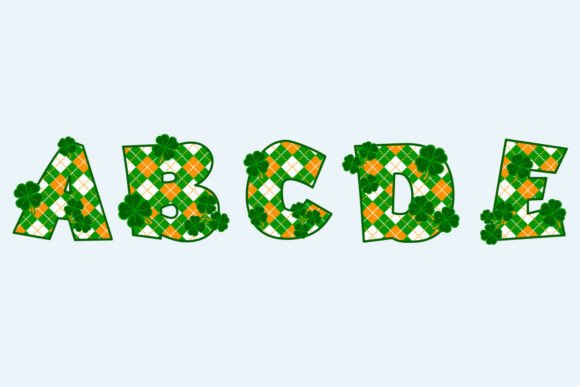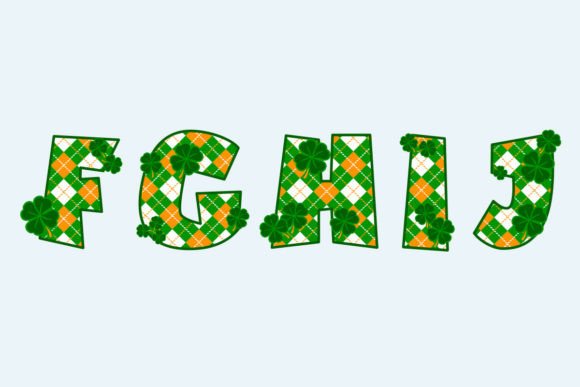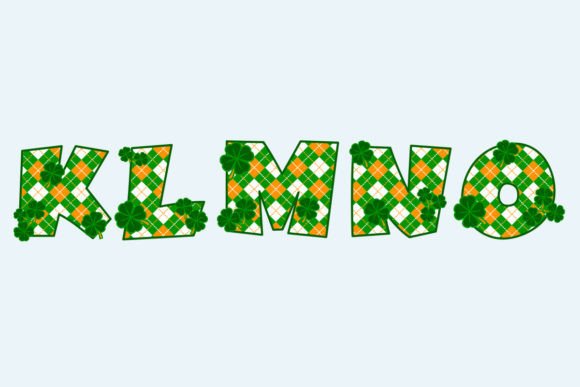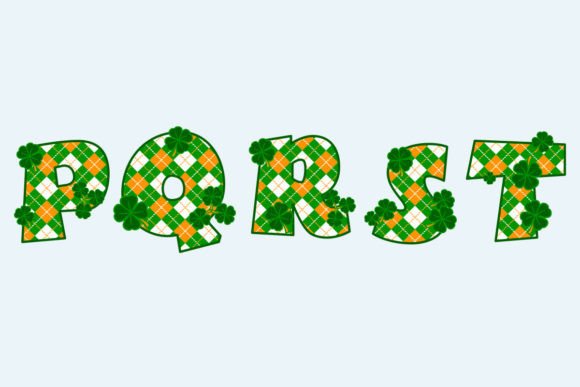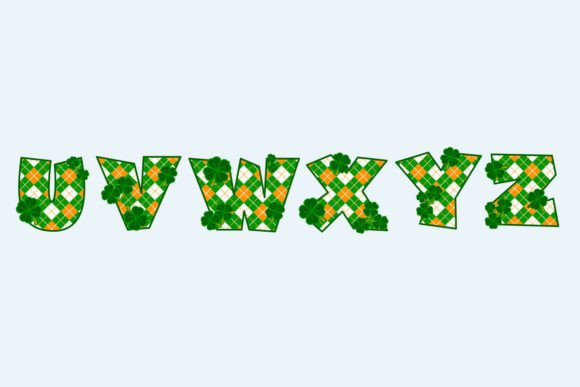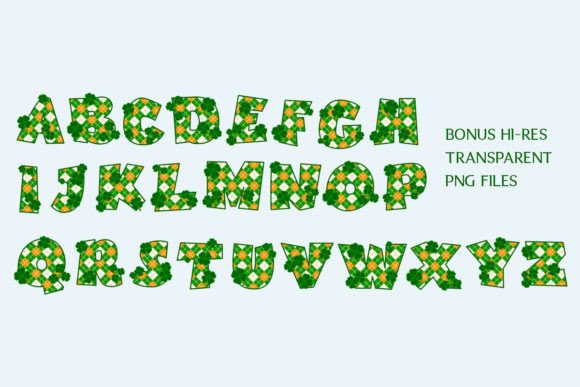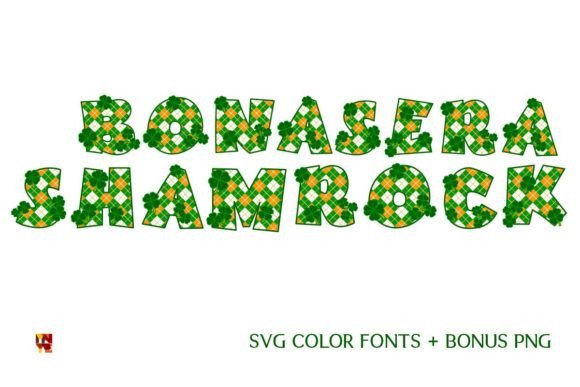
The Lucky Font: Discovering Bonasera Shamrock Font
As a designer, I’ve had my fair share of late nights scrolling through font libraries, searching for that perfect match for a client’s project. It was a typical Wednesday evening when I stumbled upon a font that made my heart skip a beat – Bonasera Shamrock. I was working on a Saint Patrick’s Day-themed design for a local business, and I needed a font that would capture the essence of the holiday. That’s when I discovered Bonasera Shamrock, a playful and fun color font that instantly brought my design to life.
First Impressions: A Review of Bonasera Shamrock
So, what makes Bonasera Shamrock so special? Let’s dive into the good stuff! 😊
- ✨ Unique Character Design: Each character in Bonasera Shamrock is infused with clover leaves and Irish patterns, making it a standout for any Saint Patrick’s Day project.
- ✅ Color Font Capabilities: This font comes with built-in color variations, allowing for stunning multicolor effects without needing additional design elements.
- 🎉 Playful and Fun: The quirky design of Bonasera Shamrock adds a touch of whimsy to any project, making it perfect for festive and creative designs.
While Bonasera Shamrock is a fantastic font, there are a few things to keep in mind:
- ⚠️ Glyph Overload: With so many fun glyphs and alternates, it can be overwhelming to navigate through them all. Take some time to explore the font’s capabilities.
- 🤔 Legibility at Small Sizes: Due to its decorative nature, Bonasera Shamrock might not be the best choice for body text or small font sizes. Use it for headlines or larger design elements for maximum impact.
The Story Behind Bonasera Shamrock
While the exact origins of Bonasera Shamrock might be shrouded in mystery, it’s easy to imagine a designer with a passion for Irish culture and a love for playful typography creating such a font. Perhaps they were inspired by a visit to the Emerald Isle, captivated by the charm of shamrocks and leprechauns. Whatever the story, Bonasera Shamrock brings a touch of that magic to our designs.
Q: Does Bonasera Shamrock support OpenType features?
A: Yes, Bonasera Shamrock comes with OpenType features, allowing you to access a range of glyphs, stylistic alternates, and swashes to enhance your designs.